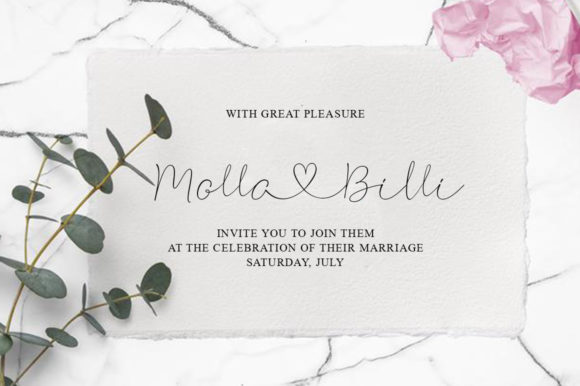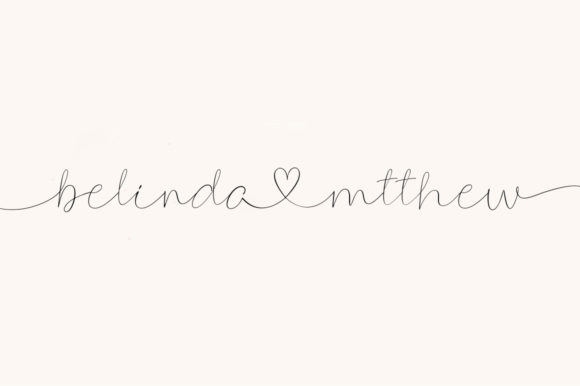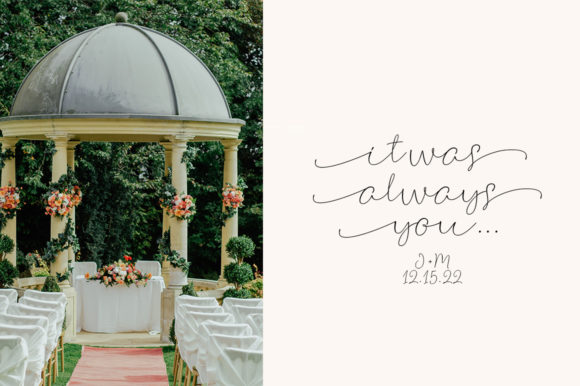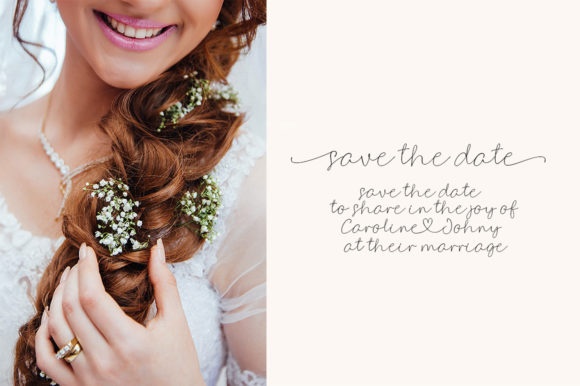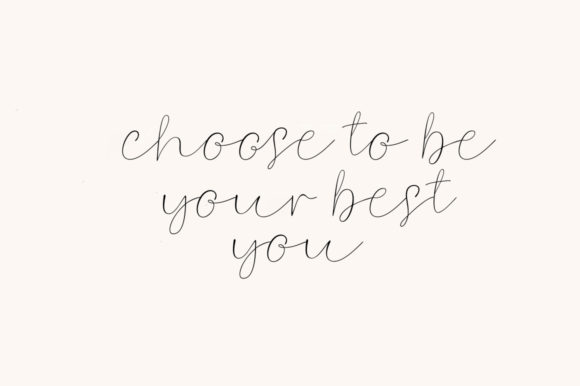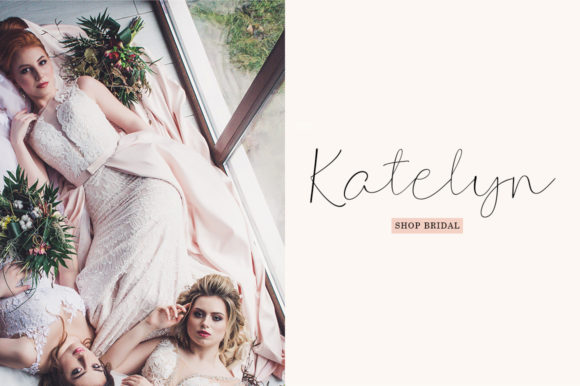
Introducing Ellastia Font: Elevate Your Designs with Elegance
Are you a designer or crafter looking for a font that exudes style and sophistication? Look no further than Ellastia Font, a stunning script font that is sure to elevate your designs to the next level. With its clean, thin, and smooth vibe, Ellastia is the perfect addition to any project, from wedding invitations and branding materials to digital graphics and craft projects.
What Makes Ellastia Font So Special?
Ellastia Font is a stylish and delicate script font that boasts a range of features that make it a standout choice for designers and crafters. Here are just a few reasons why Ellastia is a must-have font:
- Clean and Thin Design: Ellastia’s slender lines and smooth curves create a clean and elegant look that is perfect for designs where you want to make a statement without overwhelming the senses.
- PUA Encoding: Ellastia is PUA (Private Use Area) encoded, which means that you can access all of the glyphs and swashes with ease. This makes it simple to customize your designs and add unique touches that set your work apart.
- Versatility: Whether you’re working on a wedding invitation, a logo, or a digital graphic, Ellastia Font is the perfect choice. Its versatility and elegance make it suitable for a wide range of design applications.
How to Use Ellastia Font in Your Designs
- Pair it with Other Fonts: Ellastia pairs beautifully with other fonts, especially bold and sans-serif fonts. Experiment with different combinations to find the perfect look for your design.
- Experiment with Swashes: With PUA encoding, you can access a range of swashes and glyphs that allow you to customize your designs. Don’t be afraid to get creative and try out different looks.
The Benefits of Using Ellastia Font
So why should you choose Ellastia Font for your next design project? Here are just a few benefits of using this stunning script font:
- Elegance and Sophistication: Ellastia adds a touch of elegance and sophistication to any design, making it perfect for high-end branding and luxury projects.
- Easy to Read: Despite its delicate design, Ellastia is easy to read, even at small sizes. This makes it perfect for body text and other applications where readability is key.
- Unique and Creative: With its range of swashes and glyphs, Ellastia allows you to add a unique touch to your designs. This makes it perfect for designers and crafters who want to stand out from the crowd.
Who Can Benefit from Using Ellastia Font?
Ellastia Font is perfect for a wide range of designers and crafters, including:
- Graphic Designers: Whether you’re working on branding materials, logos, or digital graphics, Ellastia Font is a great addition to your toolkit.
- Wedding Designers: Ellastia is perfect for wedding invitations, stationery, and other wedding-related designs.
- Crafters: If you’re a crafter who loves to create unique and personalized items, Ellastia Font is a great choice. Use it to add a touch of elegance to your projects.
In conclusion, Ellastia Font is a stylish and delicate script font that is sure to elevate your designs to the next level. With its clean, thin, and smooth vibe, PUA encoding, and versatility, Ellastia is the perfect choice for designers and crafters who want to add a touch of elegance and sophistication to their work. Whether you’re working on a wedding invitation, a logo, or a digital graphic, Ellastia Font is a must-have font that is sure to impress.